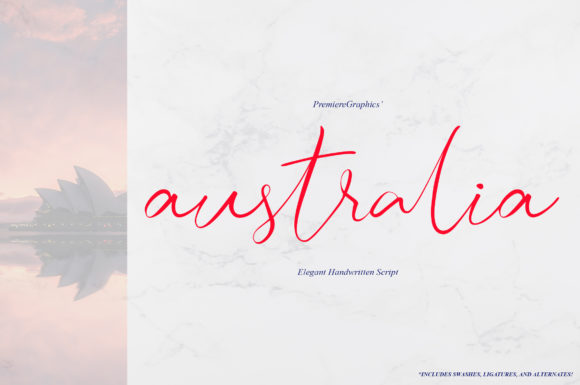
The Australia Script Font: A Designer’s Dream Come True
I’ll never forget the time I was working on a project for a high-end fashion brand, and I was struggling to find the perfect font to complement their elegant logo. The client was adamant that it had to be a script font, but not just any script font – it had to be classy, sophisticated, and, above all, realistic. That’s when I stumbled upon the Australia Script Font, and it was love at first sight! 💕
The Australia Script Font is carefully handwritten to be as realistic as your handwriting with a fountain pen. Its thick-to-thin strokes make your design as classy and elegant as it could ever be. It can be a perfect pair to a sans serif or a serif font, and is perfect for cosmetics, fashion blogs, or even to your invitation cards. Its realistic appeal is also great for photography, travel, branding, logos, magazines, identity, videos, and much more!
- 💯 The font’s realistic and elegant look, perfect for high-end designs
- ✅ Easy to read and understand, even in small sizes
- 🎨 Great for designs that require a personal touch, such as invitations and greeting cards
- 🔥 Works well with both sans serif and serif fonts, making it versatile
- 🤔 Some letters may require manual kerning for optimal spacing
- ⚠️ Not suitable for very long texts or body copy, as it may become tiring to read
The Australia Script Font was inspired by the beautiful, flowing script fonts of the past. The designer wanted to create a font that would evoke the feeling of writing with a fountain pen – elegant, sophisticated, and realistic. The result is a font that’s perfect for designs that require a touch of class and sophistication.
A: The Australia Script Font is a carefully handwritten script font designed to be as realistic as your handwriting with a fountain pen.
A: The Australia Script Font is perfect for designs that require a touch of elegance and sophistication, such as cosmetics, fashion blogs, invitation cards, photography, travel, branding, logos, magazines, identity, and videos.
A: Yes, the Australia Script Font is designed to be easy to read and understand, even in small sizes.